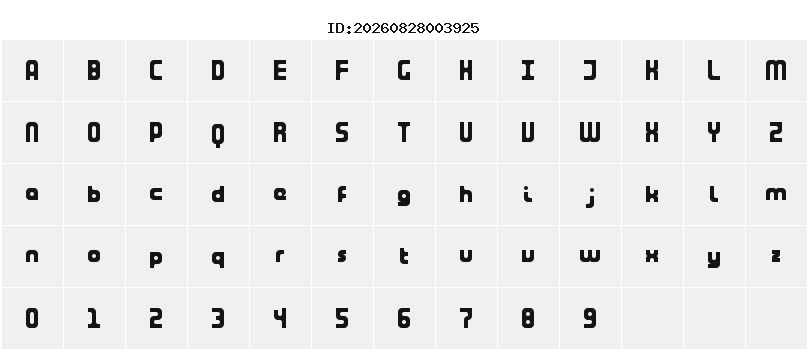
• Font Name: Tuning Fork
• Full Font Name: Tuning Fork Regular
• Designer: Jamie Place
About Tuning Fork.ttf
Tuning Fork.ttf is a modern, elegant sans-serif font designed for ultimate readability and visual harmony. Perfect for branding, headlines, web design, and print materials.